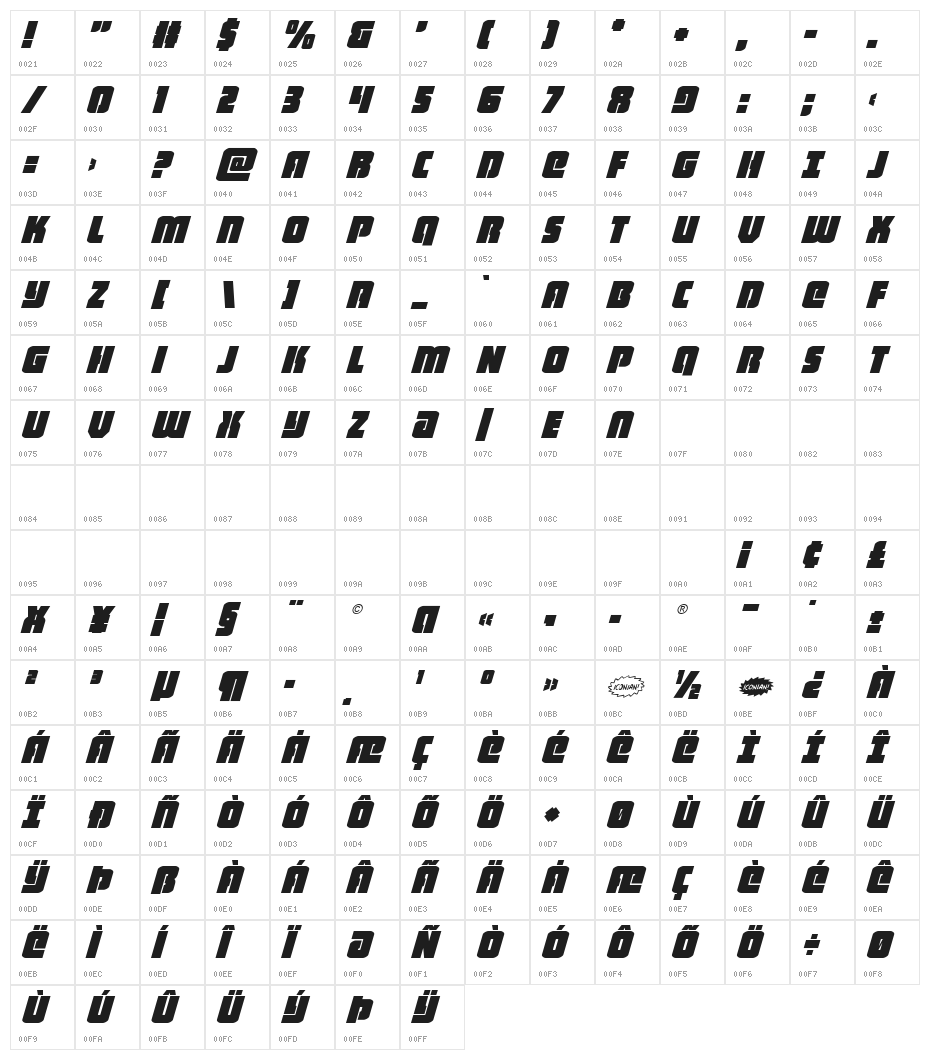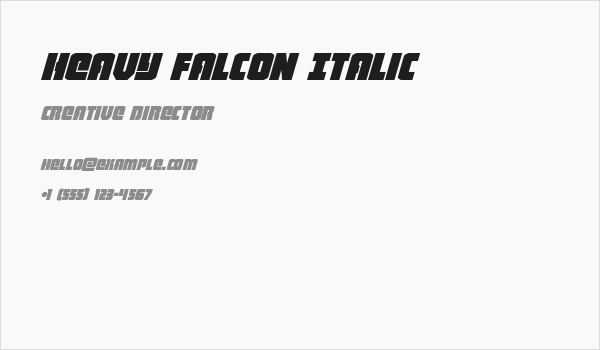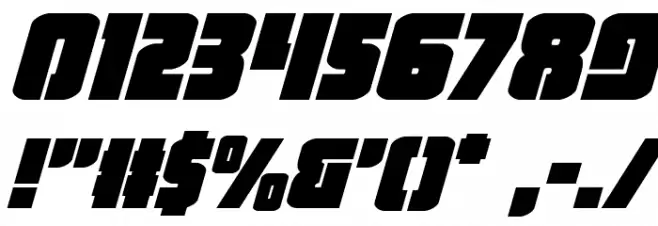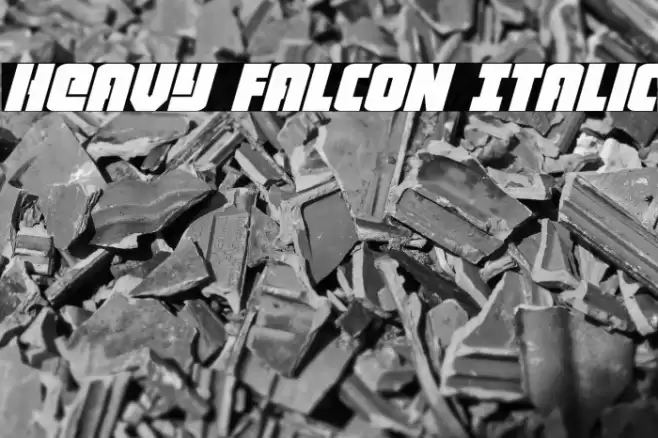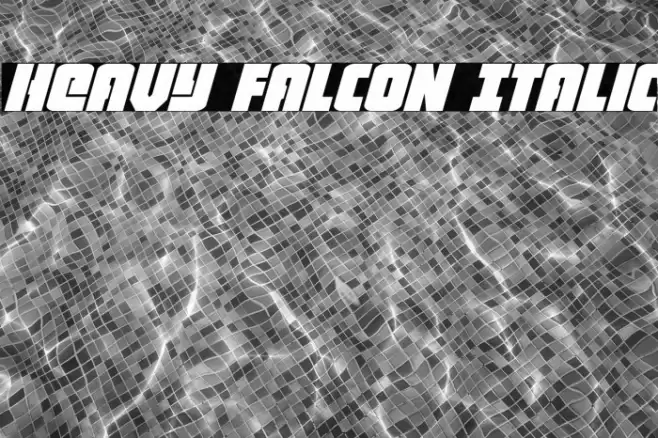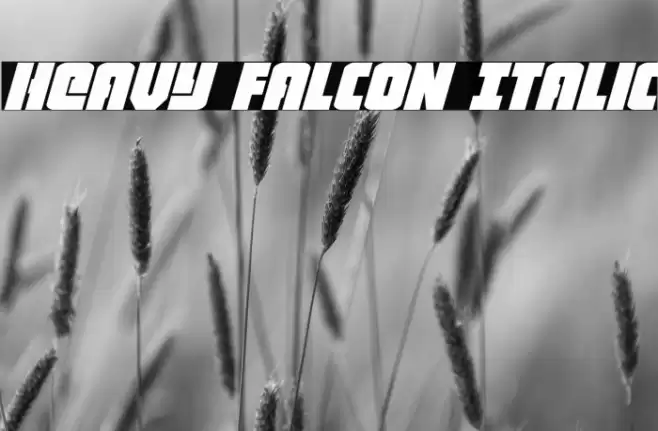
Heavy Falcon Italic Font
This font features a bold and dynamic style with an italic slant, giving it a sense of motion and energy. The characters are thick and robust, with sharp angles and a slightly condensed form. The uppercase and lowercase letters maintain a consistent weight, contributing to a cohesive and powerful appearance. The numbers and special characters are designed to match the boldness of the letters, ensuring uniformity across all elements. The font's strong presence makes it ideal for impactful designs.
| Proposed Projects | Ideal for sports branding, action movie posters, dynamic logos, and eye-catching headlines. |